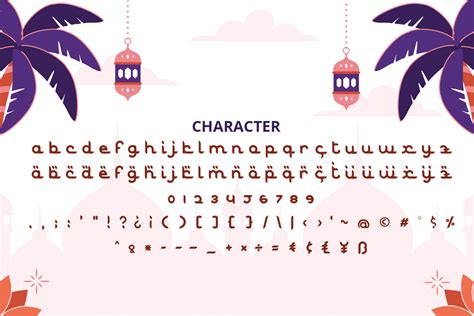
Are you looking for Marhaban font to elevate your design projects? Look no further! In this article, we’ll explore everything you need to know about the Marhaban font , including its features, uses, and where you can download it for free. Whether you’re a seasoned designer or just starting, understanding the nuances of typography is crucial. The right font can make or break your design, and Marhaban might just be the perfect fit for your next project. So, let’s dive in and discover what makes this font so special and how you can get your hands on it without spending a dime!
What is Marhaban Font?
Marhaban font is a versatile and elegant typeface known for its readability and aesthetic appeal. It’s designed to be used in a variety of contexts, from web design to print media. The font family often includes different weights and styles, providing designers with a range of options to suit their specific needs. Its clean lines and balanced letterforms make it a popular choice for both headlines and body text. When designers talk about Marhaban , they often highlight its ability to convey a sense of sophistication while maintaining a friendly and approachable vibe. This makes it suitable for a wide array of projects, including branding, advertising, and editorial design. The font’s versatility stems from its careful construction, ensuring that it remains legible even at small sizes. This is a critical factor for any font intended for use in body text, where readability is paramount. Moreover, Marhaban’s design incorporates subtle details that add character and visual interest, setting it apart from more generic typefaces. These details might include unique serifs, distinctive letter shapes, or carefully crafted kerning pairs. By paying attention to these elements, the font’s creators have produced a typeface that is both functional and aesthetically pleasing. This attention to detail is what elevates Marhaban above the average font and makes it a valuable asset for any designer looking to add a touch of elegance to their work. Whether you’re designing a website, a brochure, or a logo, Marhaban offers a refined and professional look that can help your project stand out.
Key Features of Marhaban Font
When evaluating a font, it’s essential to consider its key features. Marhaban font stands out due to several characteristics that make it a valuable asset for designers. These include its readability, versatility, and aesthetic appeal. Let’s delve deeper into each of these features to understand why Marhaban is a popular choice among designers. First and foremost, readability is a crucial aspect of any font, especially when it comes to body text. Marhaban excels in this area due to its clear and well-defined letterforms. The spacing between letters and words is carefully optimized to ensure that the text is easy to read, even at smaller sizes. This makes it suitable for a wide range of applications, from website content to printed documents. The font’s designers have paid close attention to the details that contribute to readability, such as the height of the x-height and the shape of the ascenders and descenders. These elements work together to create a comfortable reading experience for the user. In addition to readability, versatility is another key feature of Marhaban . The font family typically includes a variety of weights and styles, such as regular, bold, italic, and condensed. This allows designers to use Marhaban in different contexts, from headlines to body text, without sacrificing visual consistency. The availability of different styles also makes it easy to create visual hierarchy within a design, guiding the reader’s eye and emphasizing important information. Furthermore, Marhaban’s aesthetic appeal is undeniable. The font’s elegant and refined design makes it suitable for a wide range of projects, from corporate branding to creative advertising. Its clean lines and balanced letterforms convey a sense of professionalism and sophistication, while its subtle details add character and visual interest. The font’s designers have carefully considered the overall look and feel of Marhaban , creating a typeface that is both functional and aesthetically pleasing. This makes it a valuable asset for any designer looking to add a touch of elegance to their work.
Where to Use Marhaban Font
Marhaban font’s versatility makes it suitable for a wide array of design projects. Consider using it for branding materials to create a sophisticated and professional look. Its clean lines and balanced letterforms make it ideal for logos, business cards, and stationery. In web design, Marhaban can be used for both headlines and body text, ensuring readability and visual appeal. Its elegant design can enhance the user experience and create a cohesive brand identity. For print media, such as brochures, posters, and magazines, Marhaban offers a refined and polished aesthetic. Its versatility allows it to be used in various contexts, from corporate reports to creative advertisements. Editorial design benefits greatly from Marhaban’s readability and visual appeal. Its clear letterforms and optimized spacing make it easy to read long passages of text, while its elegant design adds a touch of sophistication. Marketing materials, such as flyers, banners, and social media graphics, can also benefit from Marhaban’s versatility. Its ability to convey a sense of professionalism and elegance makes it suitable for promoting a wide range of products and services. The font’s clean and modern design can help capture the attention of potential customers and create a lasting impression. In presentations, Marhaban can be used to create visually appealing and easy-to-read slides. Its clear letterforms and optimized spacing ensure that the text is legible, even from a distance. The font’s elegant design can also help convey a sense of professionalism and credibility. Personal projects, such as invitations, cards, and announcements, can also benefit from Marhaban’s versatility. Its elegant and refined design makes it suitable for creating a wide range of personalized items, adding a touch of sophistication to any occasion. No matter the project, Marhaban offers a refined and professional look that can help elevate your design and make a lasting impression.
Tips for Using Marhaban Font Effectively
To make the most of Marhaban font , consider these tips for effective usage. Use it sparingly to create emphasis and avoid overwhelming your design. Marhaban is best used for headlines and short blocks of text where its elegance can shine. Pair it with a simpler, more neutral font for body text to ensure readability and balance. A sans-serif font like Arial or Helvetica can complement Marhaban without competing for attention. Experiment with different weights and styles to create visual hierarchy and add depth to your design. Use bold and italic styles to highlight important information and guide the reader’s eye. Pay attention to kerning and tracking to ensure that the letters are properly spaced and the text is easy to read. Adjust these settings to optimize the appearance of Marhaban in different contexts. Consider the overall tone and message of your design when using Marhaban . Its elegant and refined design makes it suitable for projects that require a touch of sophistication. Avoid using it in designs that are meant to be playful or informal. Use Marhaban consistently throughout your design to create a cohesive and professional look. Avoid mixing too many different fonts, as this can make your design look cluttered and disorganized. Test your design on different devices and screen sizes to ensure that Marhaban looks good in all contexts. Pay attention to how the font renders on different browsers and operating systems. Get feedback from others to get a fresh perspective on your design. Ask colleagues or friends for their opinion on how Marhaban is used and whether it effectively conveys the intended message. By following these tips, you can use Marhaban to create visually appealing and effective designs that stand out from the crowd. Its elegance and versatility make it a valuable asset for any designer looking to add a touch of sophistication to their work.
Alternatives to Marhaban Font
If Marhaban font isn’t quite what you’re looking for, several alternative fonts offer a similar aesthetic. These alternatives can provide different nuances and styles to suit your specific design needs . One popular alternative is Montserrat, a geometric sans-serif font that is widely used in web and print design. Montserrat’s clean lines and modern design make it a versatile choice for headlines and body text. Another option is Open Sans, a humanist sans-serif font that is known for its readability and friendly appearance. Open Sans is a great choice for body text, as its clear letterforms and optimized spacing make it easy to read long passages of text. Lato is another excellent alternative, offering a similar balance of readability and aesthetic appeal. Its semi-rounded details give it a warm and approachable feel, making it suitable for a variety of design projects. Roboto is a modern sans-serif font that is widely used in Android and Google products. Roboto’s clean lines and geometric shapes make it a versatile choice for both headlines and body text. Playfair Display is a serif font that offers a more traditional and elegant aesthetic. Playfair Display’s high contrast and delicate serifs make it a great choice for headlines and display text. Raleway is a stylish sans-serif font that features a unique and distinctive design. Raleway’s elongated letterforms and geometric shapes make it a great choice for logos and branding materials. By exploring these alternatives, you can find the perfect font to complement your design and convey the intended message effectively. Remember to consider the overall tone and style of your project when choosing a font, and experiment with different options to see what works best. Finding the right font is crucial for creating visually appealing and effective designs that resonate with your audience.
The Marhaban font is a versatile and elegant typeface that can elevate your design projects. Its readability, versatility, and aesthetic appeal make it a valuable asset for designers. While downloading it for free requires caution, reputable sources offer safe options. By using Marhaban effectively and considering alternatives, you can create visually appealing designs that leave a lasting impression. So go ahead, give Marhaban a try and see how it can transform your next project! Remember to always respect font licenses and support the designers who create these amazing resources. Happy designing, guys!